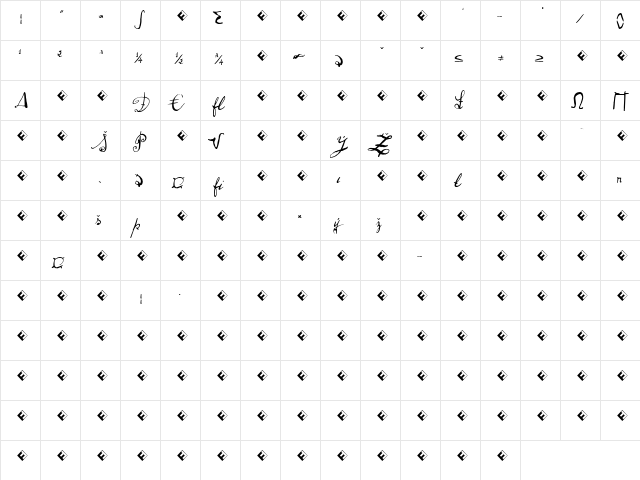
Pepe-Expert Regular
Design Context for Pepe-Expert Typeface
Pepe-Expert is a composed and adaptable typeface that performs quietly and consistently across a wide range of design contexts.